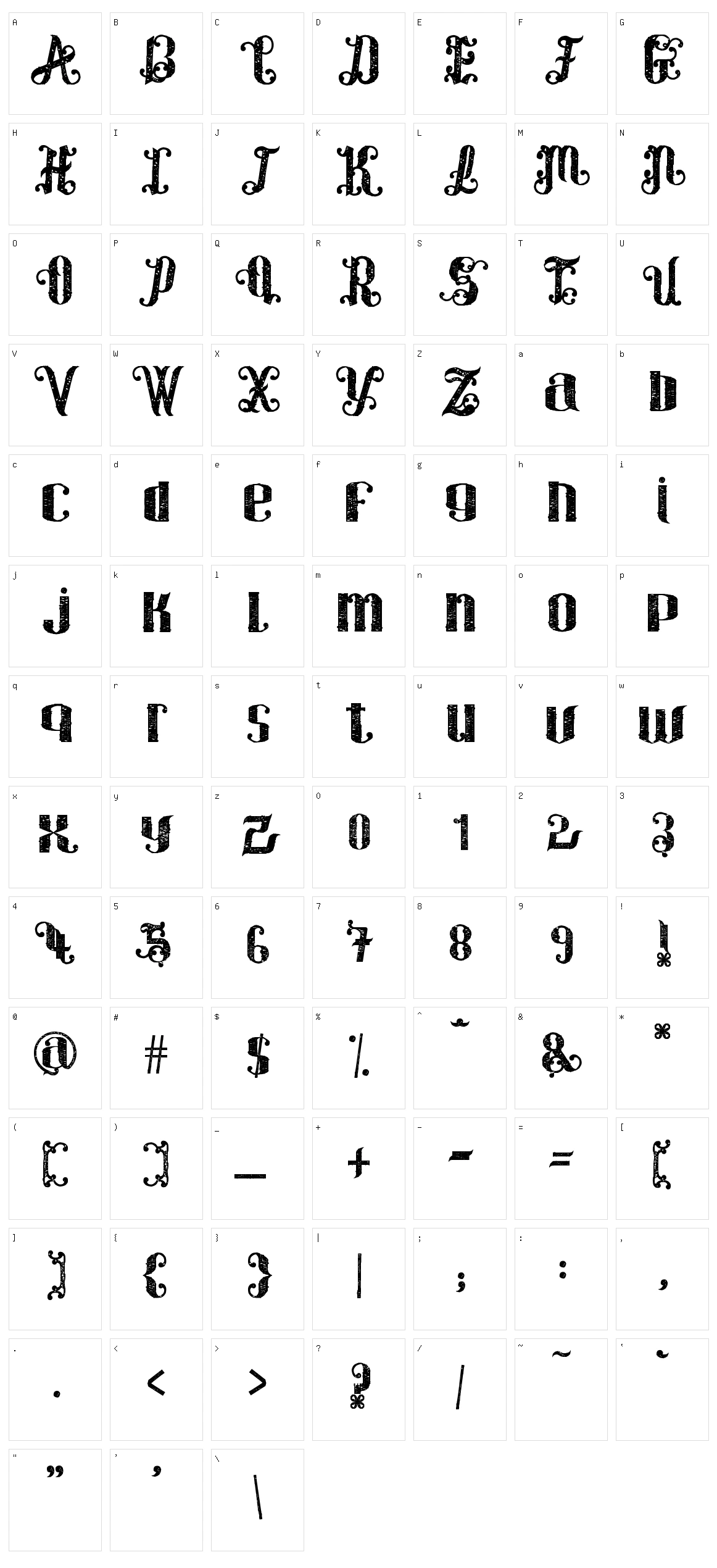
The free font For Winter is carefully designed by paintblack, showcasing a thoughtful balance of creativity and usability and falls under the Eroded font style. When you download the ZIP file, it contains only 327.36 KB of font files, making it lightweight and quick to download. Please review the license details below to understand permitted usage and distribution rights. If license information is not available, we recommend using this font for personal projects only or contacting the author directly for commercial usage permissions.
- For Winter Font by paintblack